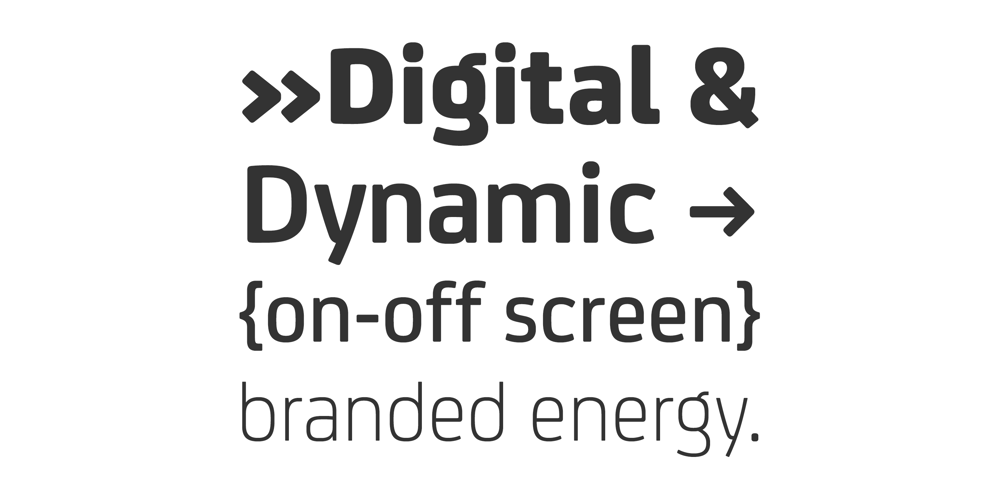
FS Joey Font Family was designed by Jason Smith, Fernando Mello and published by Fontsmith. FS Joey contains 10 styles and family package options. KangarooFS Joey was the offspring of a project with Rudd Studio to develop a logotype for an online streaming TV service, in 2008. While under wraps, the secret project was code-named Kangaroo. The logotype led to a second project, to design a corporate typeface for the service.It was the first big project Fernando Mello had worked on with Jason Smith. “Like any designer who just joined a team, I was very excited about it, drawing and sketching lots of ideas. I remember Jason and I experimenting with lots of possibilities, for both the logo and the typeface.”OnlineAs the font for a Spotify-style, internet-based service, FS Joey needed to be highly legible on-screen, including at very small sizes. There had to be a range of weights, and they’d have to work well in print, too. It was also important that it felt corporate, not too quirky, while still having a strong character of its own.Quirkiest“We designed three weights specifically for use on the Web,” says Jason Smith. “There was the usual fight between me and my team. I wanted at least one identifiable letter that was a quirk. As always I went straight for the lowercase ‘g’, and it was drawn numerous times with lots of variation. I got the quirkiest one accepted by the client.”But, later in 2009, the Competition Commission blocked Project Kangaroo, and Fontsmith were left with a couple of weights of an as yet unused font. From Kangaroo, Joey was born.A favourite“Straight away, people started to notice the typeface,” says Jason. “I can take the credit for pushing the art direction and standing up for the quirks. But it was Fernando who was the key to pulling it all together and adding his own distinct flavour. Now it’s one of my favourite designs in our library.”Fresh and friendly, geometric and energetic, Joey is available in five weights, all with italics, all finely-tuned for both screen and print.